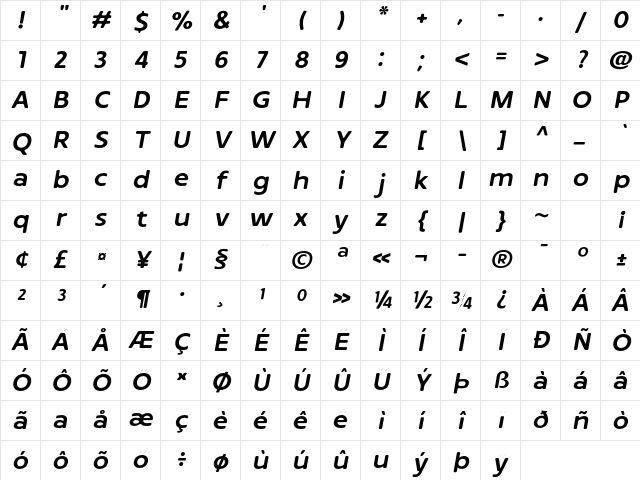
Archopada Rounded Oblique SemBd Regular Free Font
Archopada Rounded Oblique SemBd Regular
Designer: Wildan Suprian Syah
Design Context for Archopada Rounded Oblique SemBd
Archopada Rounded Oblique SemBd softens its letterforms with rounded terminals, giving it an approachable, friendly quality that works well in consumer-facing and digital contexts. The slanted form adds forward momentum and visual energy.
Font Pairing: Pairs well with a rounded or humanist sans for body copy, maintaining the friendly tone without relying on Archopada Rounded Oblique SemBd to carry extended reading.
Pro Tip: Use Archopada Rounded Oblique SemBd for UI elements, app interfaces, and anywhere a friendly, approachable tone needs to be maintained without sacrificing clarity.